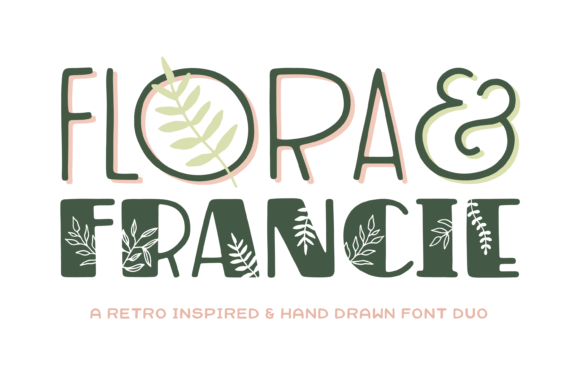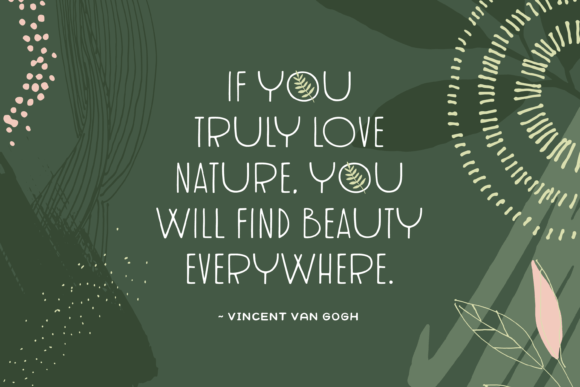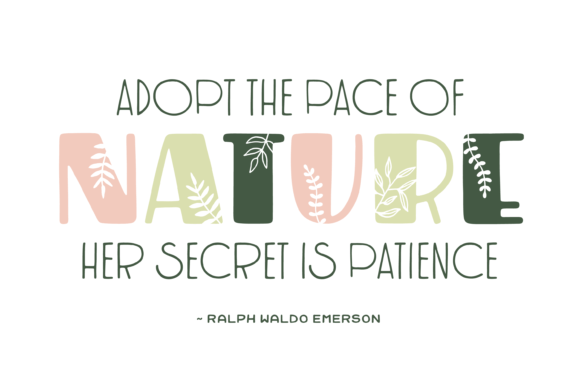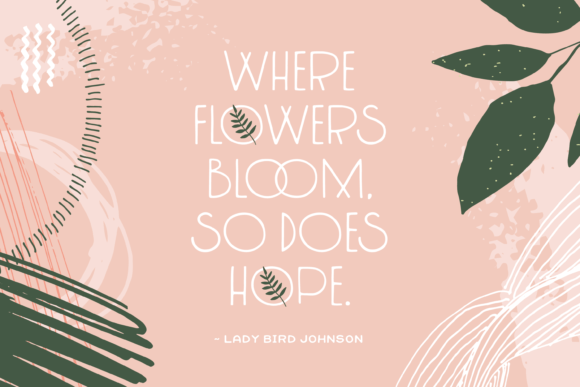
Flora & Francie Font
About the Flora & Francie Font
Make a bold statement with Flora & Francie Font, a powerful and memorable font. Flora & Francie is an all-caps, retro inspired duo. The thick and thin fonts provide a beautiful contrast that will make any typography stand out. The bold font includes both a plain version (uppercase) and a version decorated with leaves (lowercase) for an elegant and unique feel.
Flora & Francie excels in display applications such as logos, headlines, short taglines, and posters where its bold contrast and decorative elements can shine. It’s ideal for branding projects aiming for a vintage or art deco aesthetic, particularly those related to fashion, beauty, or artisanal goods. However, its all-caps nature and decorative flourishes make it unsuitable for body text or long-form content. Avoid using it in UI design or situations requiring high readability.
Pairing Flora & Francie effectively requires a contrasting typeface. A clean sans-serif like Montserrat or a geometric sans-serif like Futura would provide a modern counterpoint to its retro styling. For a softer contrast, consider pairing with a subtle serif like Garamond or a script font like Playfair Display, depending on the desired level of formality.
The overall personality of Flora & Francie is elegant yet playful; bold yet refined. Its decorative elements add a touch of whimsy without sacrificing sophistication.
Flora & Francie Font Usage Examples
Flora & Francie Font Example